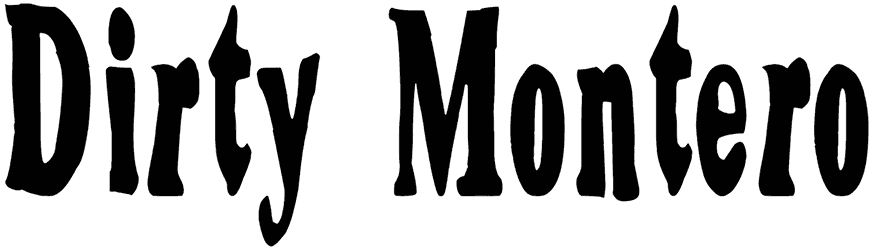
Dirty Montero Font
You’ll never be better at creating spooky Halloween posters, cool apparel designs, and seeming old pieces of graphics for escape rooms, movies, and more now that you have the quirky letters of Dirty Montero to count on any time you want.
Just say the word, and this 40s font shows you what an important role it can play in setting apart your projects and alluring the audience with a bit of teasing attitude, just the thing your mysterious artwork needs.